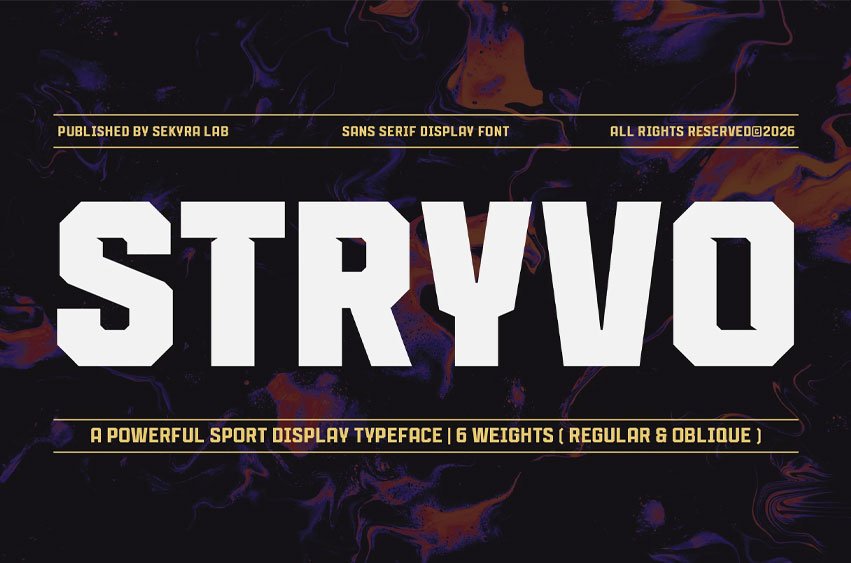
Stryvo Font is a modern sport display font family built for bold headlines, competitive visuals, and high-impact typography. Featuring sharp geometric shapes, strong proportions, and a clean athletic aesthetic, Stryvo delivers a powerful visual presence that works perfectly for energetic and fast-paced creative projects.
Designed with versatility in mind, Stryvo combines modern sports-inspired letterforms with clean readability, making it ideal for both digital and print applications. Whether used for esports graphics, gaming content, event posters, social media visuals, branding systems, video thumbnails, streaming overlays, or promotional campaigns, Stryvo helps your typography stand out with confidence and intensity.
This font family includes 6 weights and 2 styles, giving you full flexibility to create dynamic typography compositions across different visual styles.
Stryvo Family Includes:
- (Light, Regular, Medium, Semi Bold, Bold, Extra Bold)
- Available in: (Regular, Oblique)
Perfect for esports graphics, gaming visuals, competitive event promotions, social media content, posters, branding, digital interfaces, headline typography, and futuristic creative projects.
Features:
- Multilingual Support
- 6 Weights, 2 Styles (Regular & Oblique)